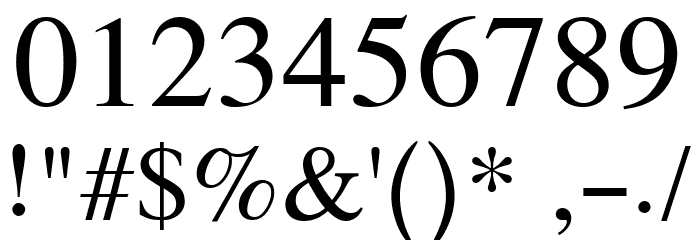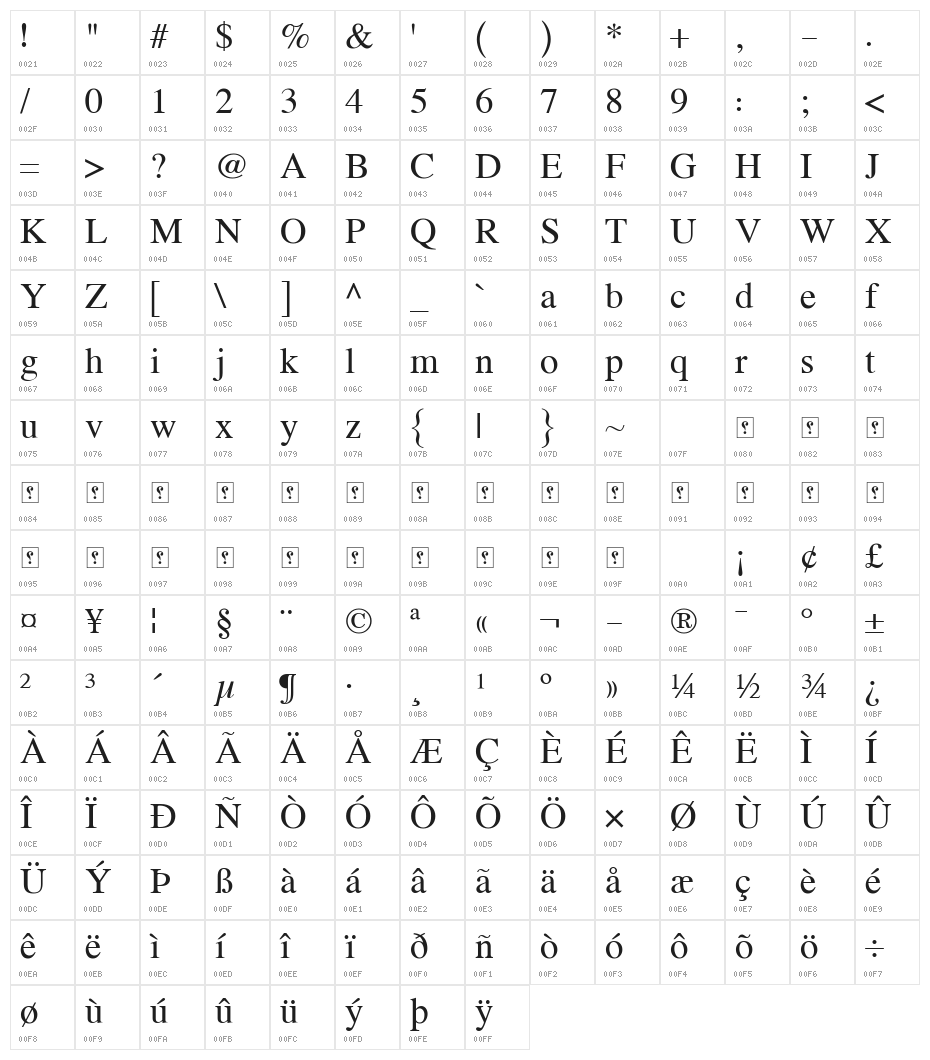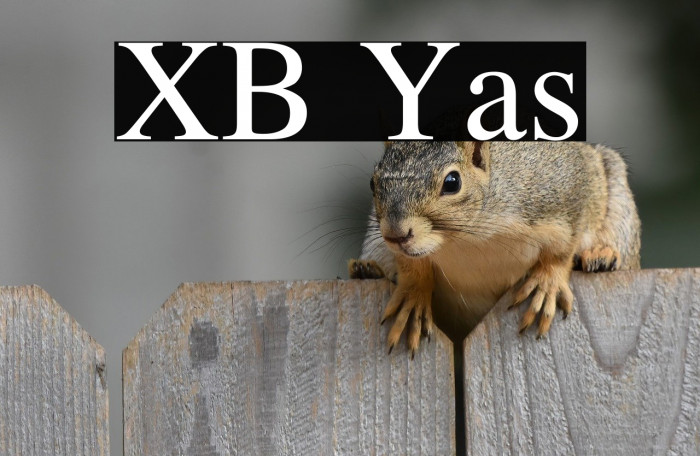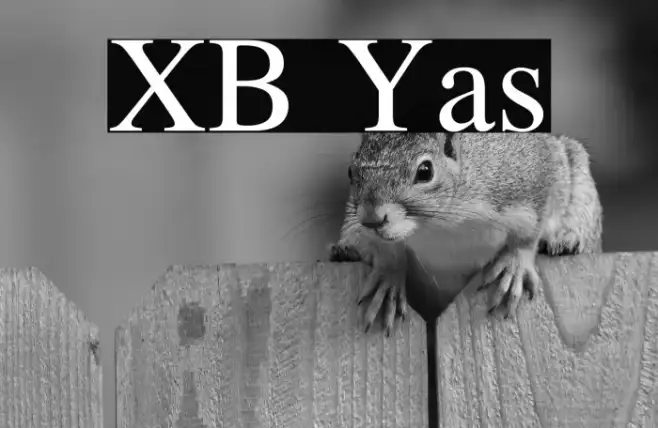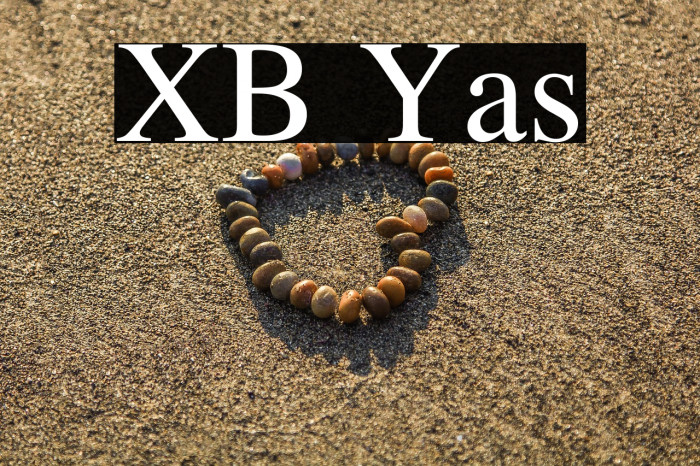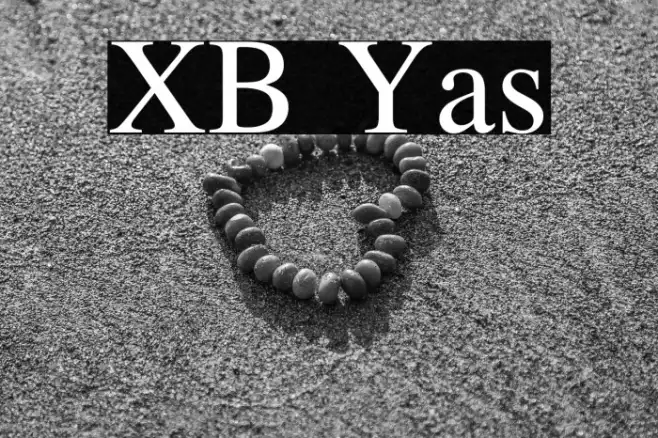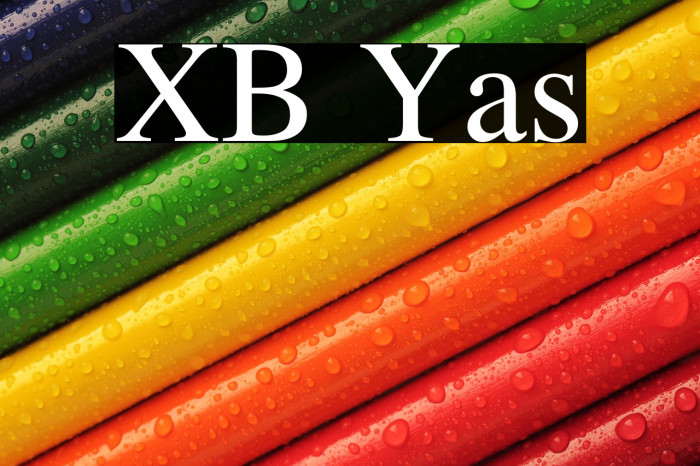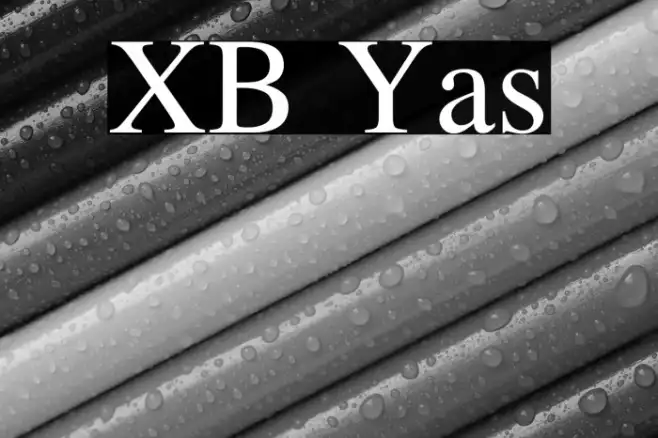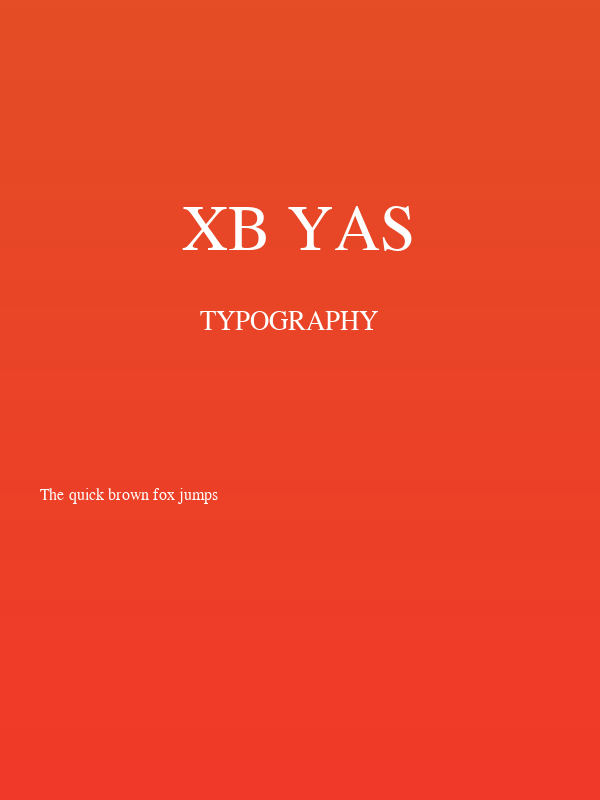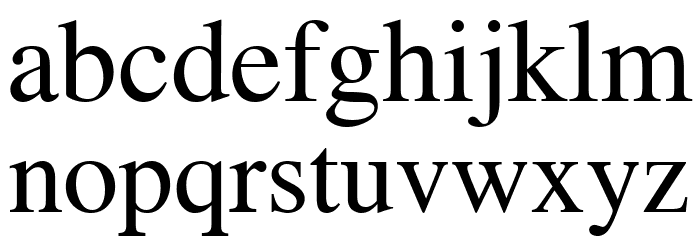
XB Yas Font
XB Yas Description
This font features a classic serif design with elegant and refined strokes. The uppercase letters are bold and commanding, while the lowercase letters maintain a balanced and harmonious appearance. The numerals are clear and distinct, making them suitable for both display and text settings. Special characters are well-integrated, offering a cohesive look across all glyphs. The font's overall aesthetic is timeless, making it versatile for various design applications.